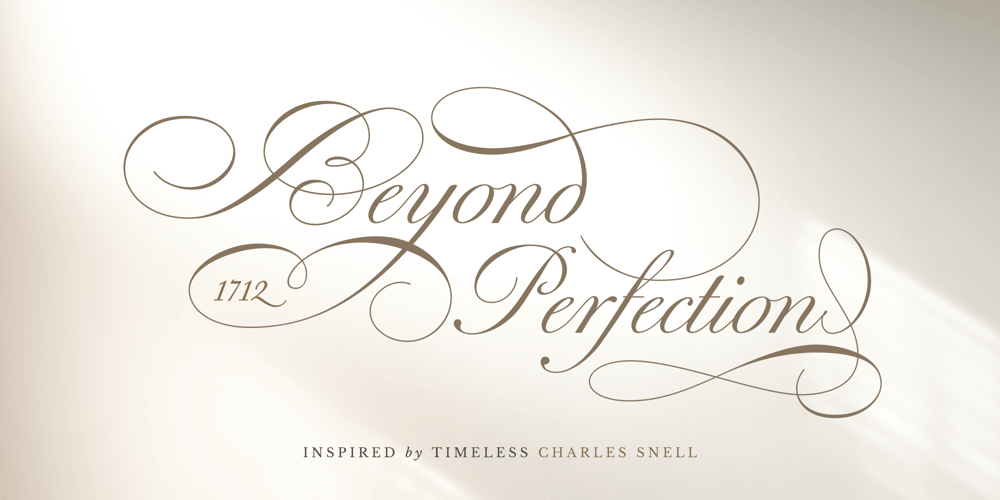
Beyong Perfection Font Family was designed by Dmitrii Mikitenko and published by BlessedPrint. Beyong Perfection contains 3 styles and family package options. Inspired by the timeless elegance of Charles Snell’s 18th-century handwriting, Beyond Perfection Script reimagines his graceful, sophisticated style for modern design needs while retaining its classic charm. This beautifully romantic script is perfect for creating unique wedding invitations, elegant signage, and sophisticated branding. If you loved my popular scripts Mozart and Juliette, Beyond Perfection will enchant you with its exquisite flourishes and creative possibilities.